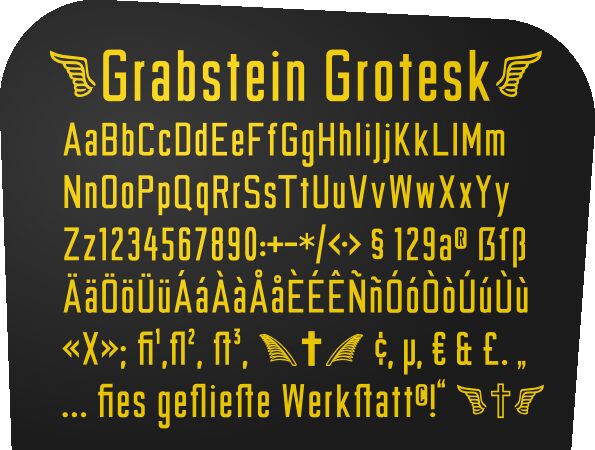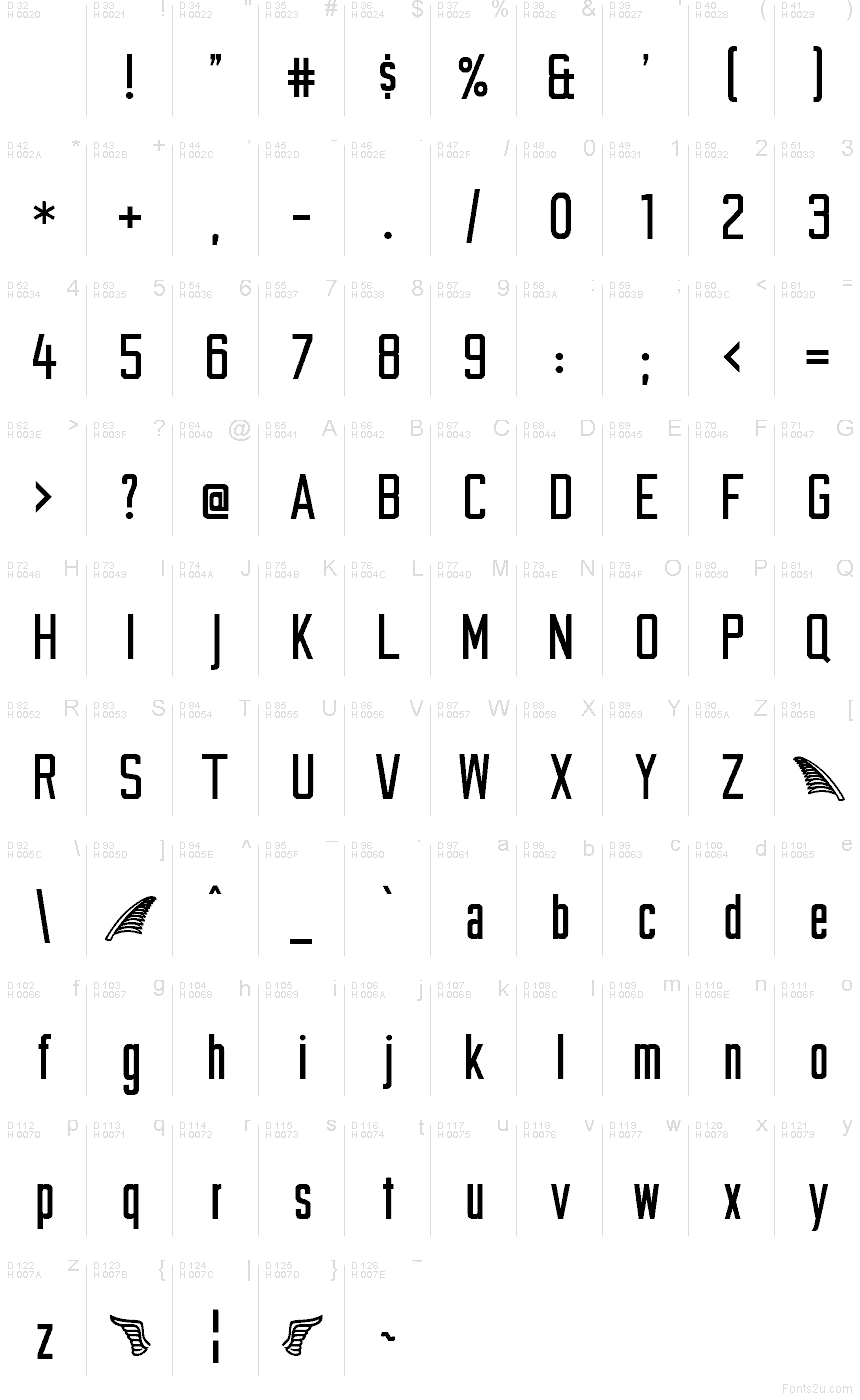
Grabstein Grotesk
Grabstein Grotesk font by Uwe Borchert is a free sans serif typeface with a tall, compressed build and chunky, squared curves that feel both industrial and handcrafted. The tight letterforms stack up like engraved blocks, giving text a dense, carved-in-stone presence while still reading cleanly at a glance. Sitting within the Grabstein family, its straight verticals and blunt corners create a sturdy rhythm that pulls the eye along a line of text with quiet authority.
Using Grabstein Grotesk, you get a characterful sans that shines on posters, album covers, headers, experimental logos, bold signage, zines, and edgy packaging. This free font really comes alive at larger sizes, where its narrow silhouette and heavy strokes can dominate the layout without wasting horizontal space. Pair it with a simple geometric sans or a light-weight grotesk for body copy to keep the focus on Grabstein Grotesk’s compact, monolithic voice.